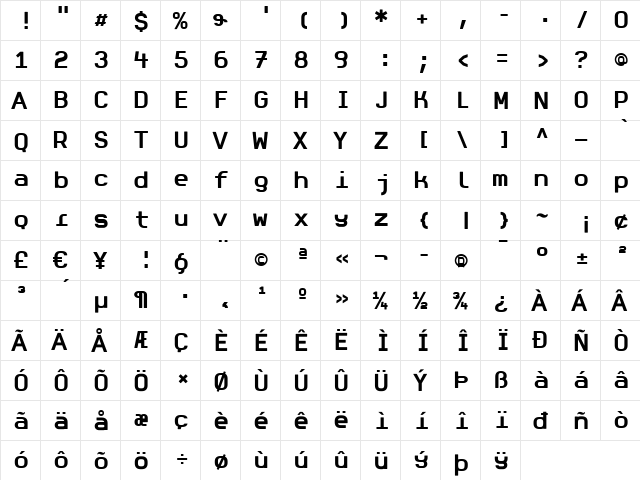
Normetica Regular
Design Context for Normetica Typeface
Normetica offers clean, dependable letterforms without strong stylistic allegiance, making it a practical choice for designers who need flexibility.
Pro Tip: Pair Normetica with a font of contrasting weight or personality to build a more expressive typographic hierarchy.